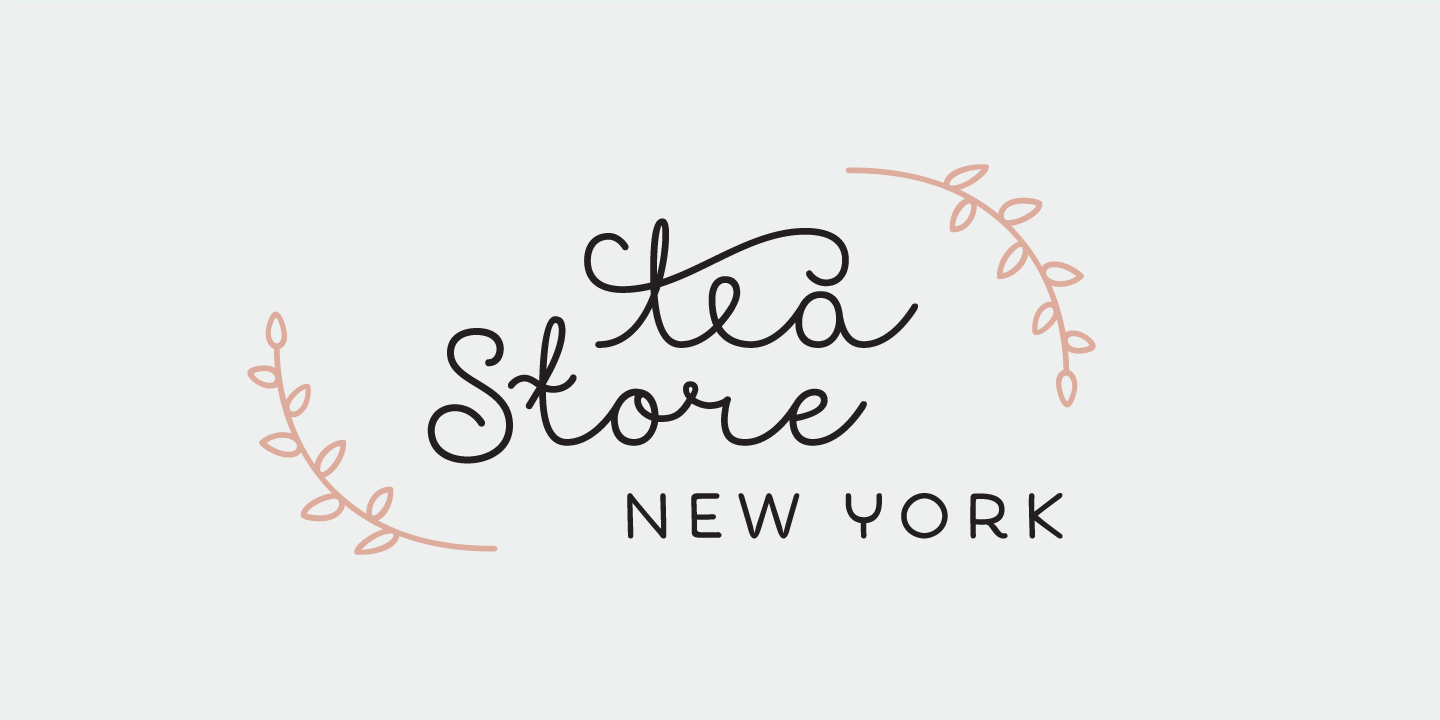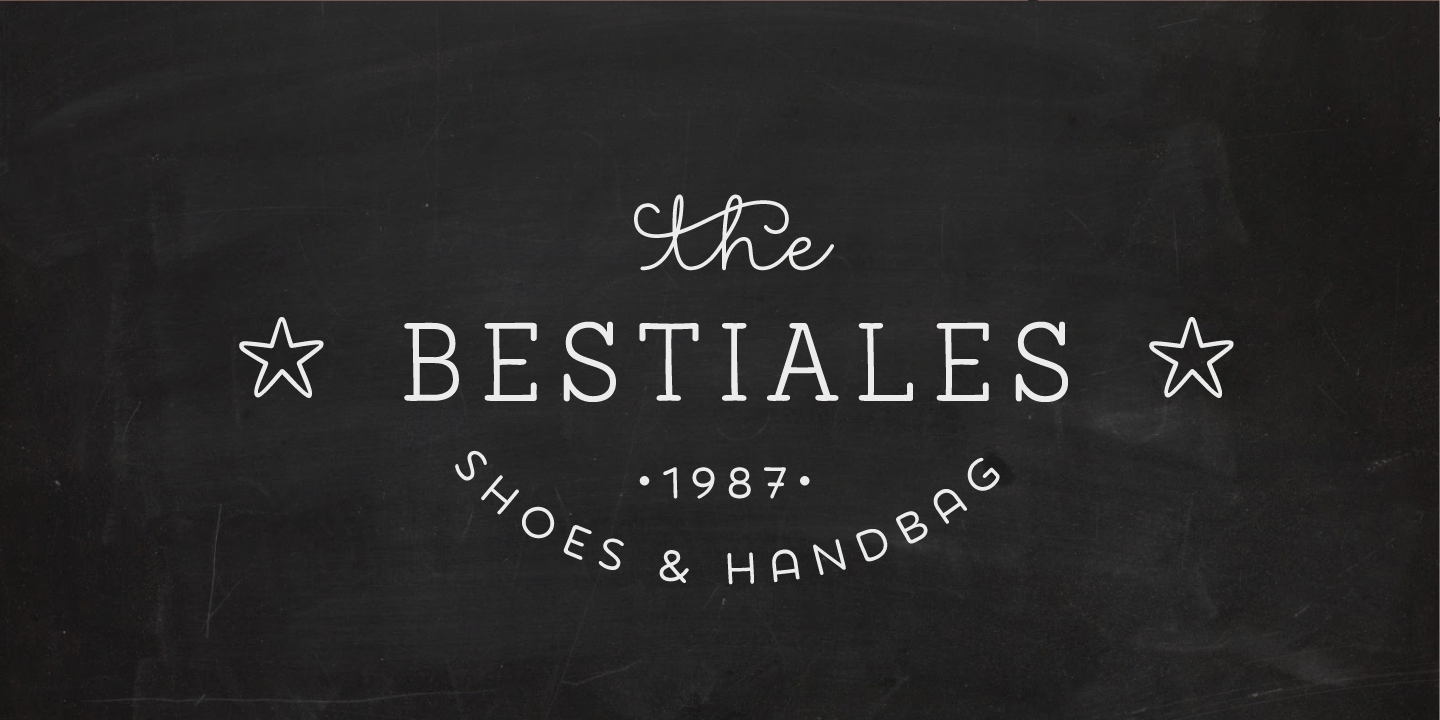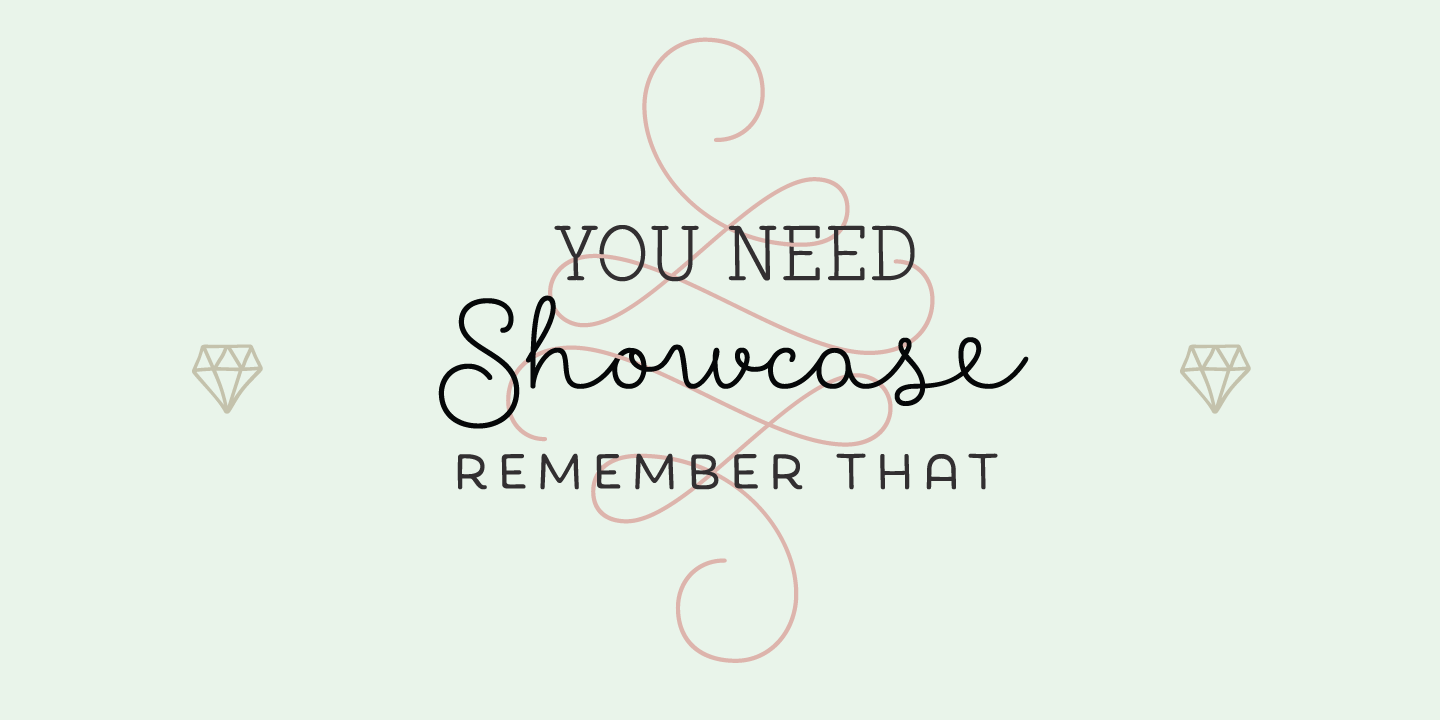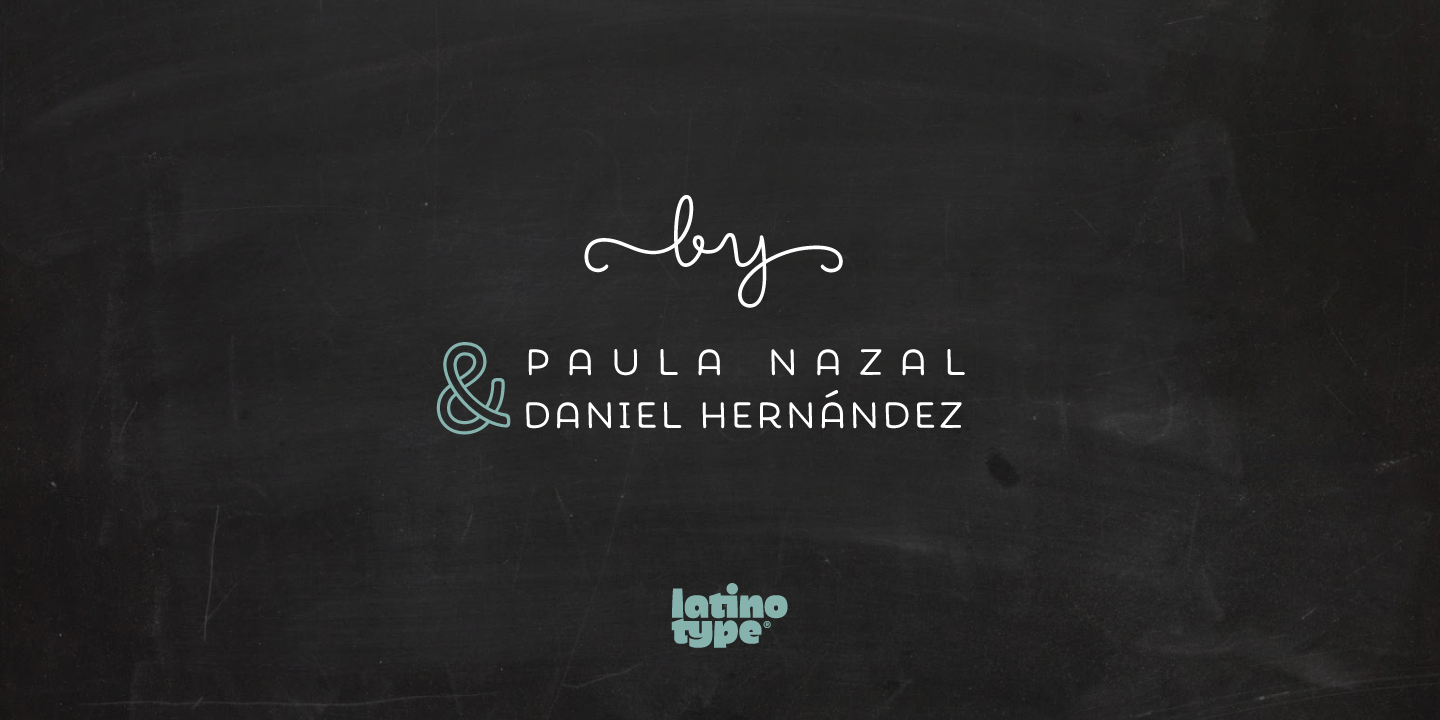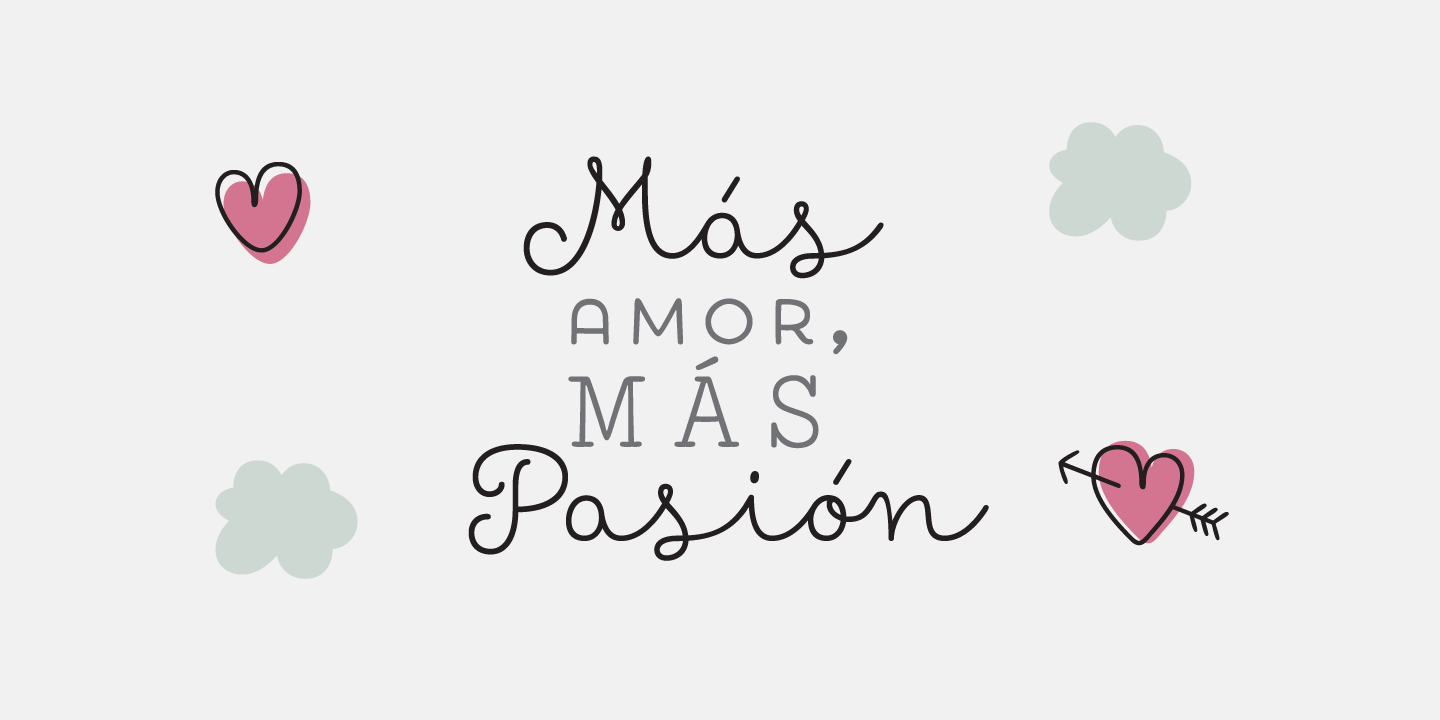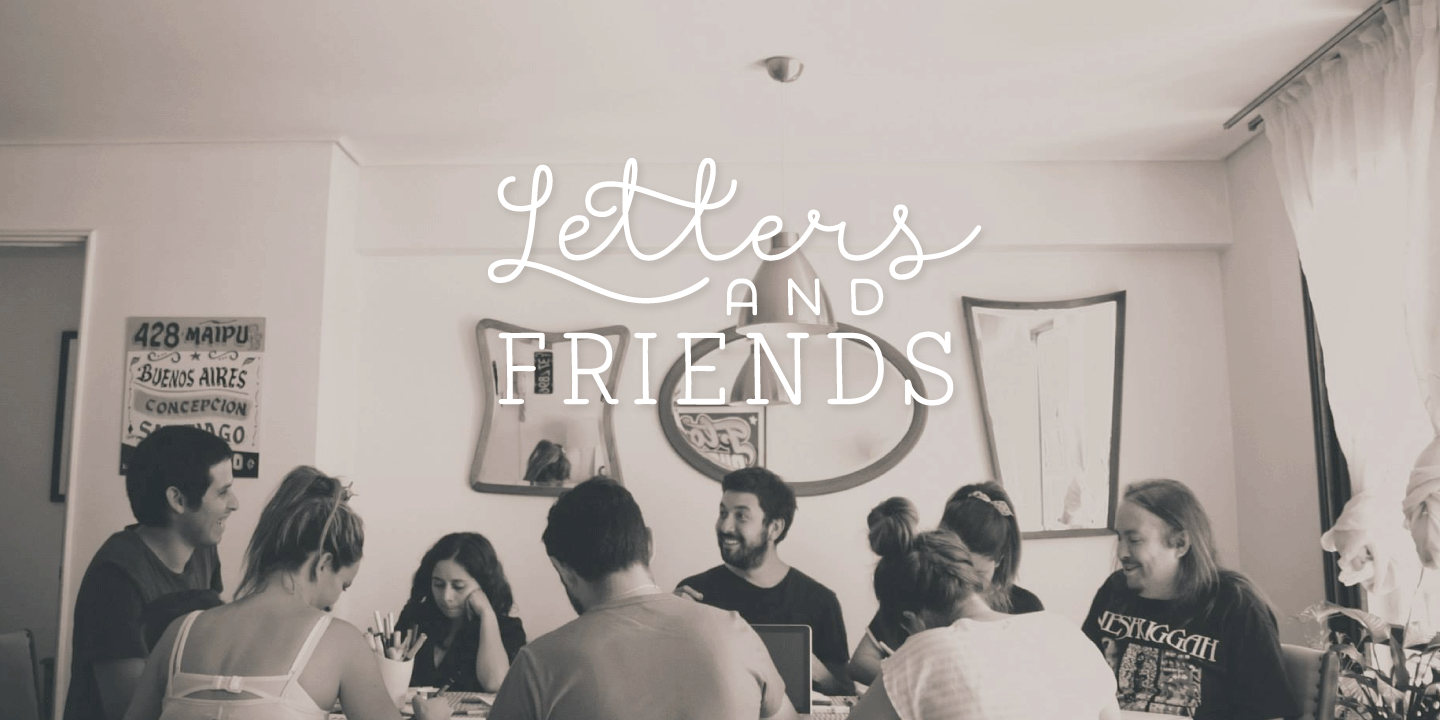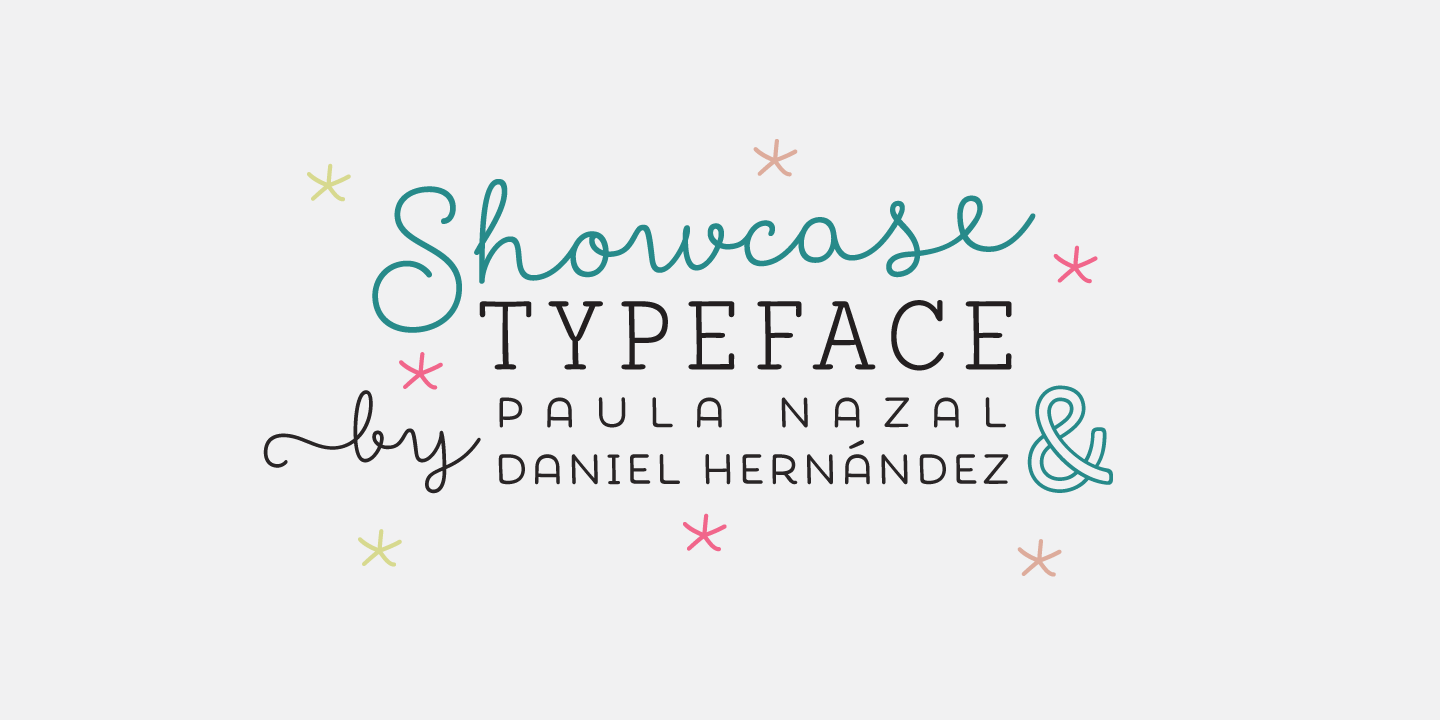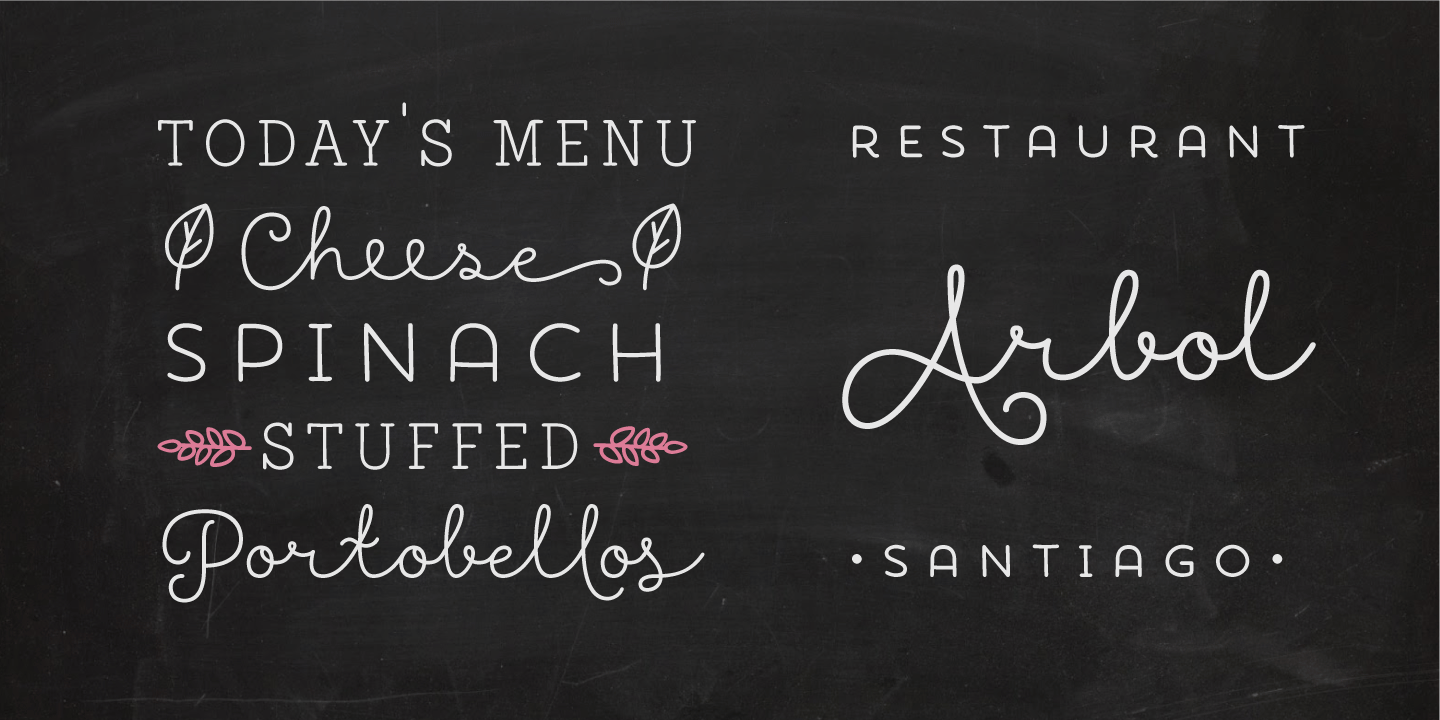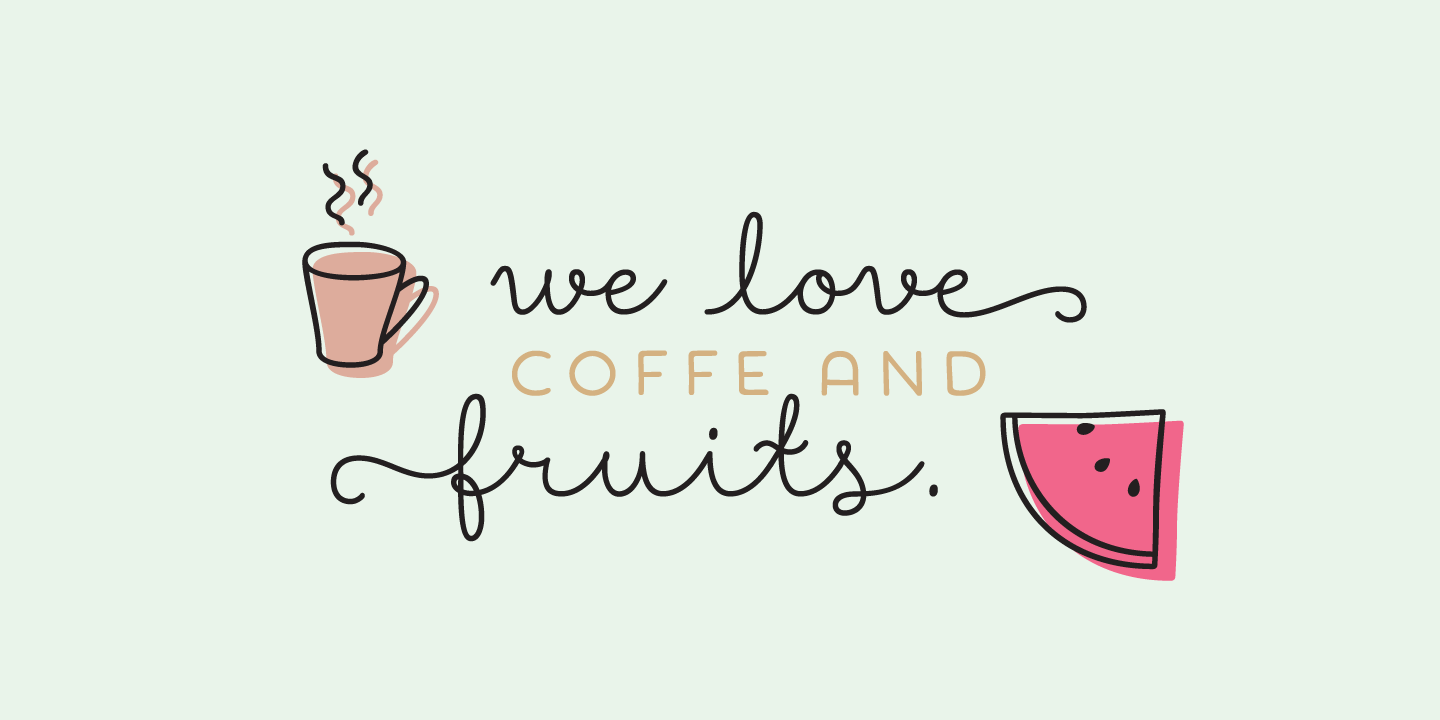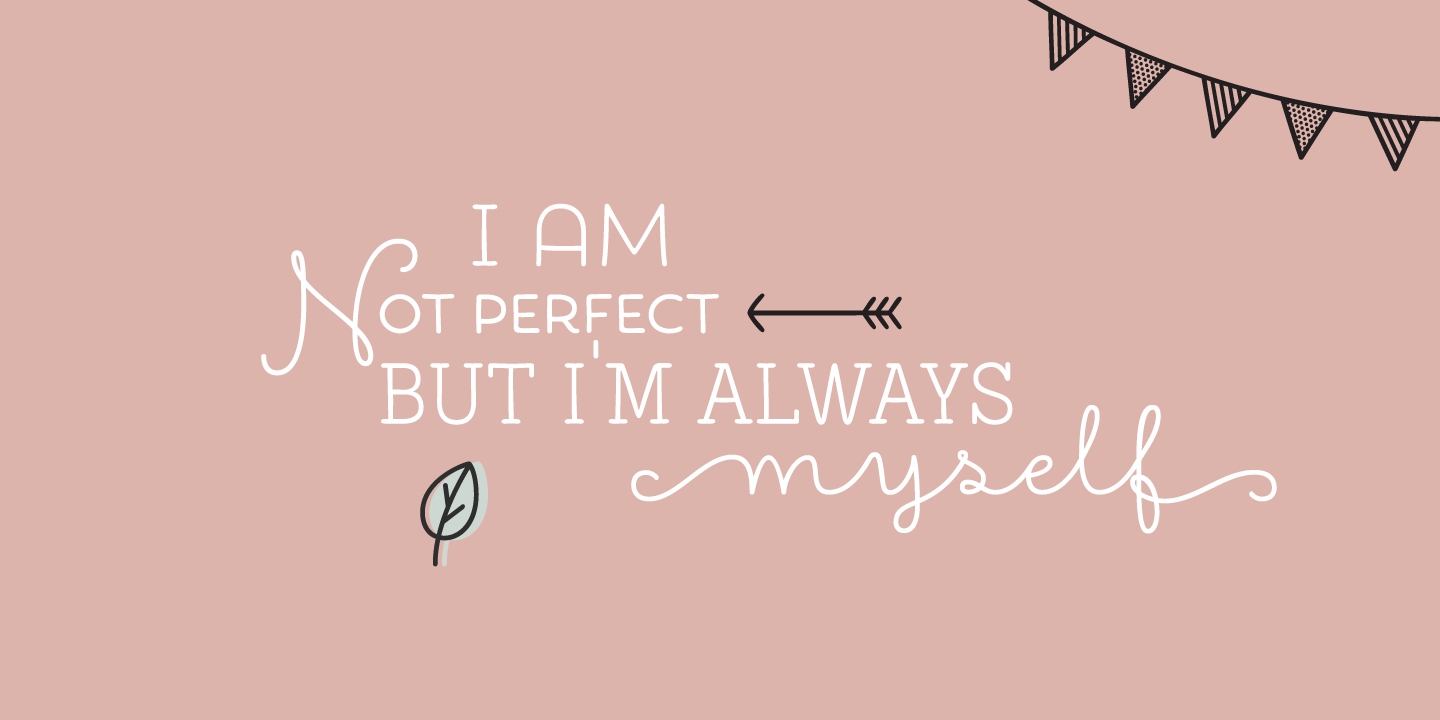
Already a best seller, Showcase is a new typeface by Daniel Hernandez and Paula Nazal. This is a handmade font family consisting of a set of types that are composed of four styles, one script, one sans, a slab, sans mini and finally a set of ornaments and dingbats, all designed to work together.
Showcase is very easy to use and allows great versatility, can be used in advertising, packaging, in menus, in signage, on the web, and really anyway you can think of!
Discretionary Ligatures, Alternates, Contextual Alternates, Swash